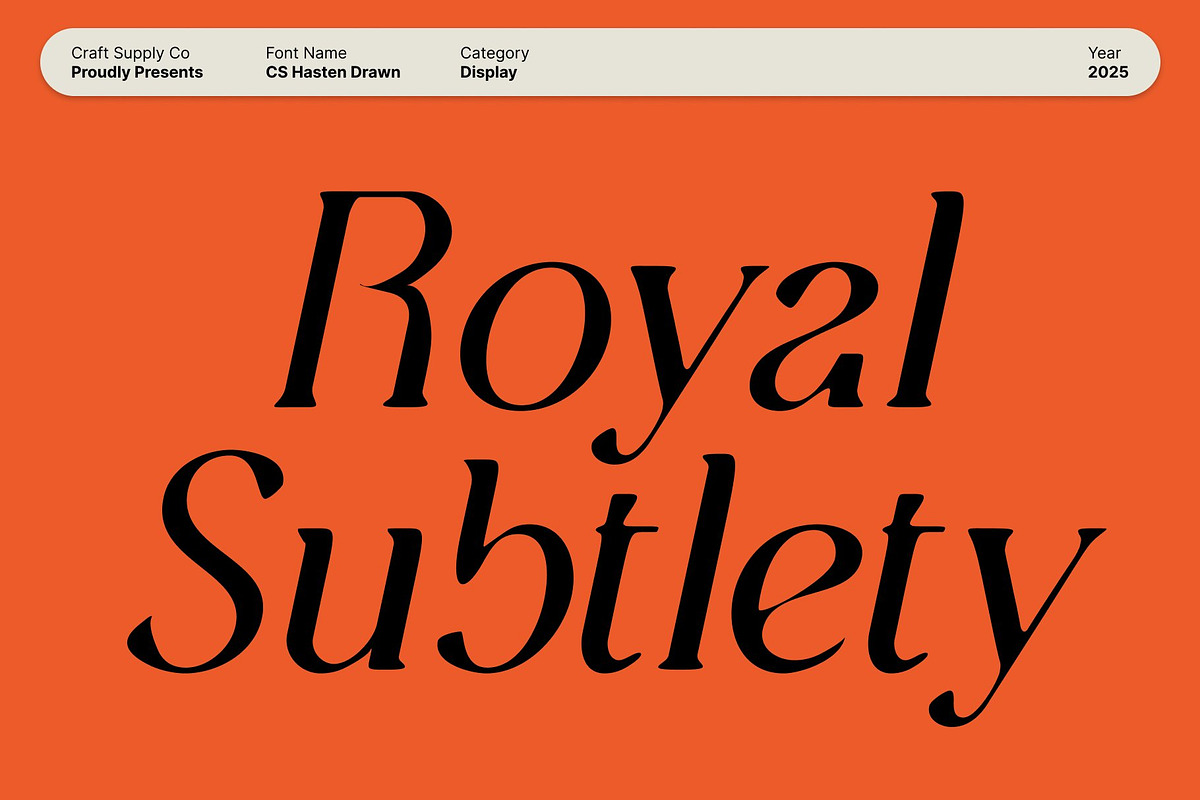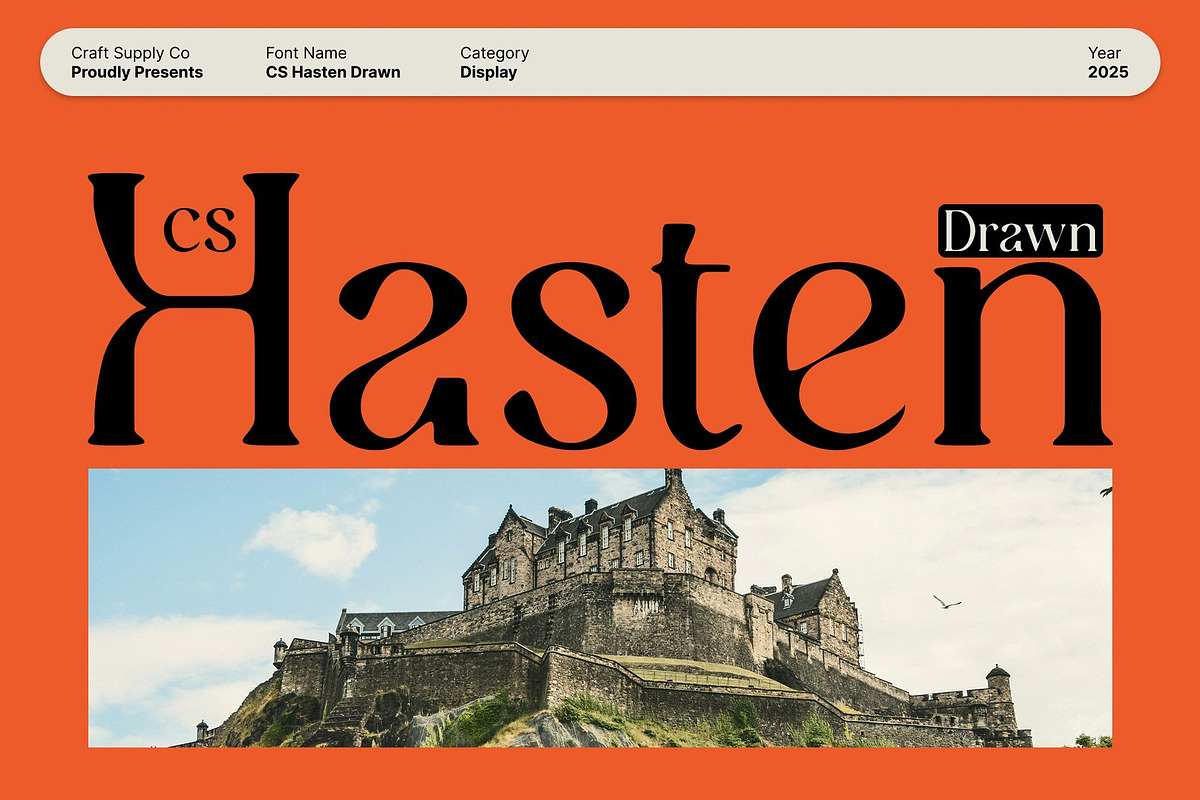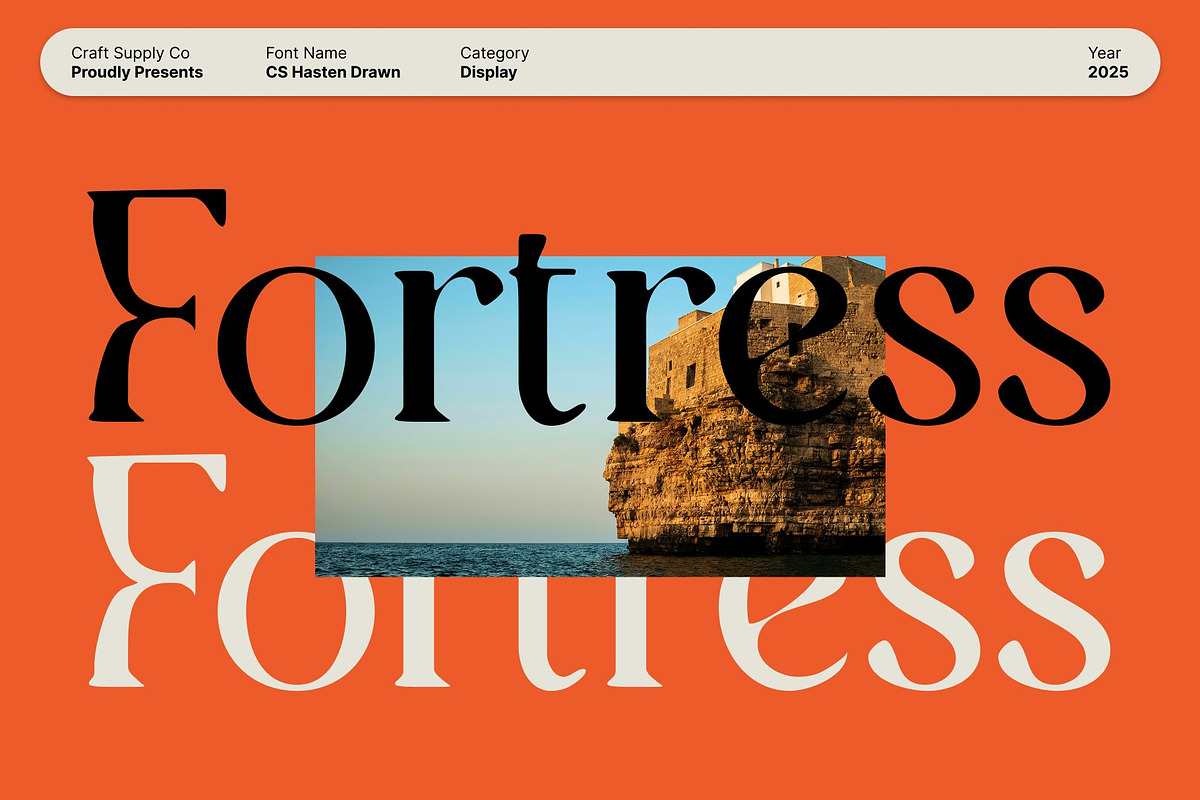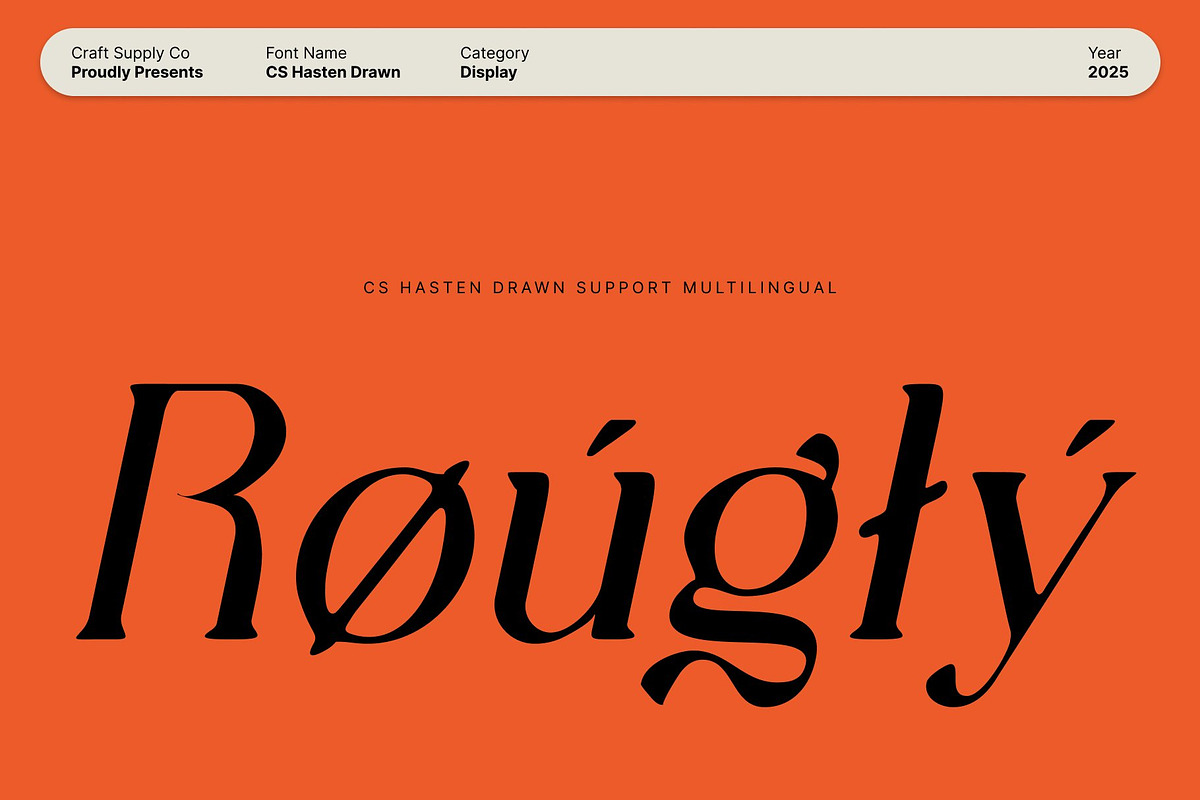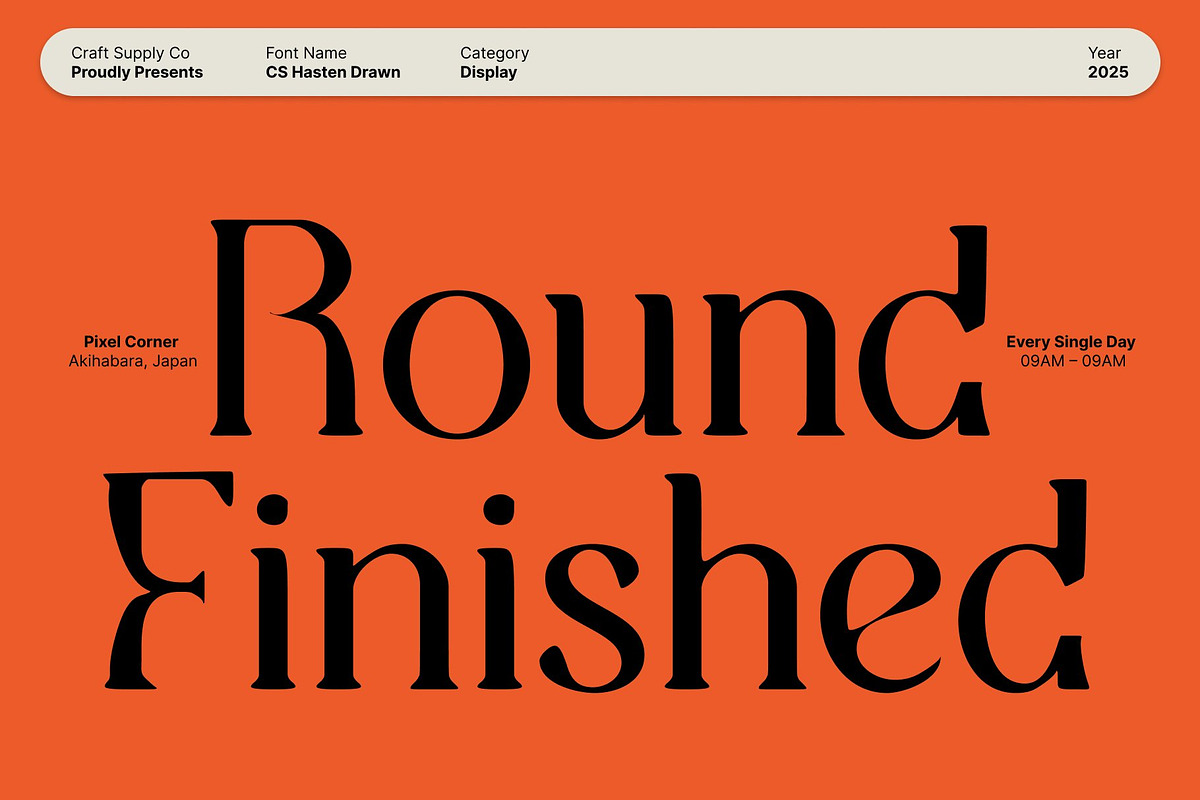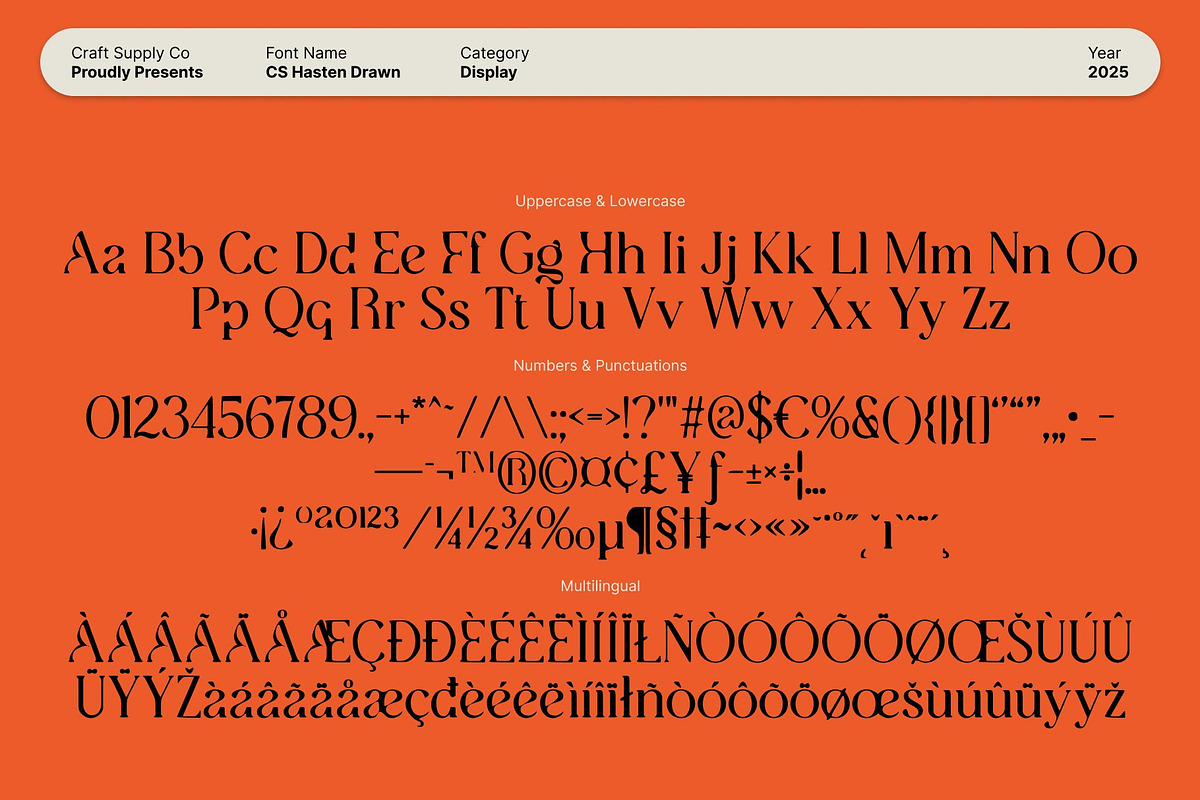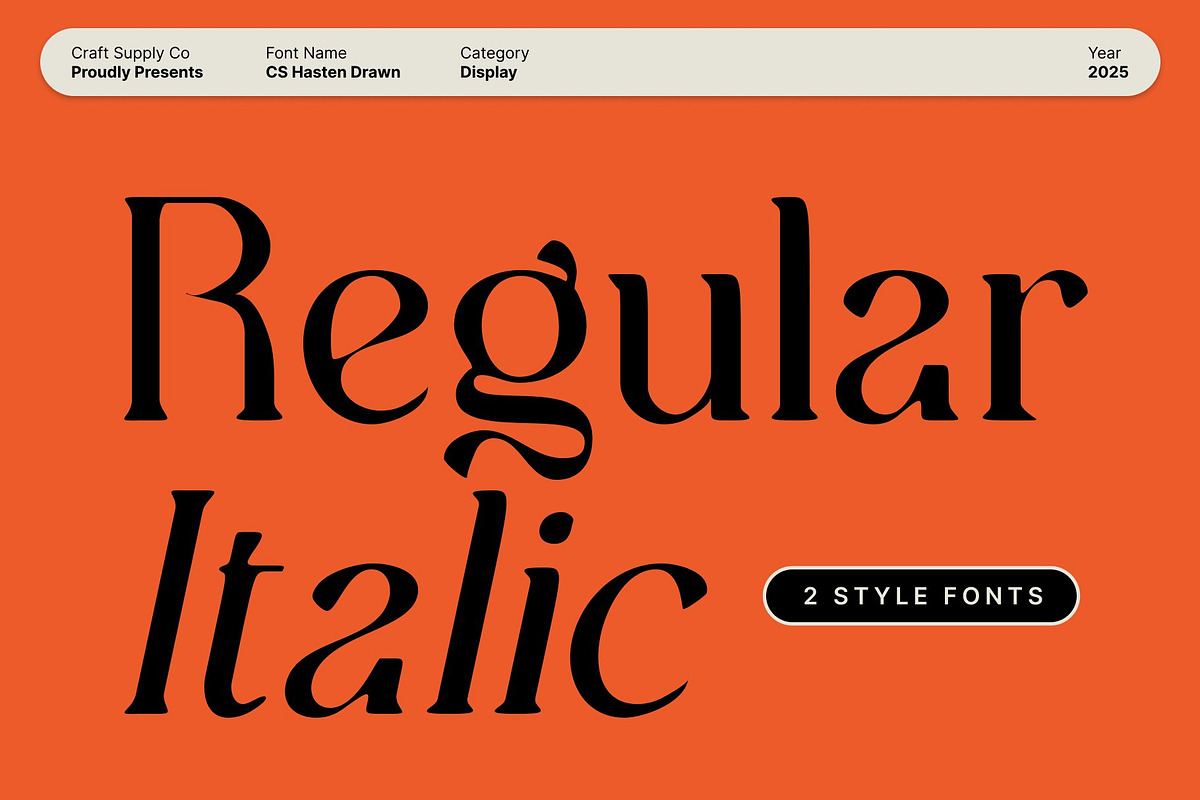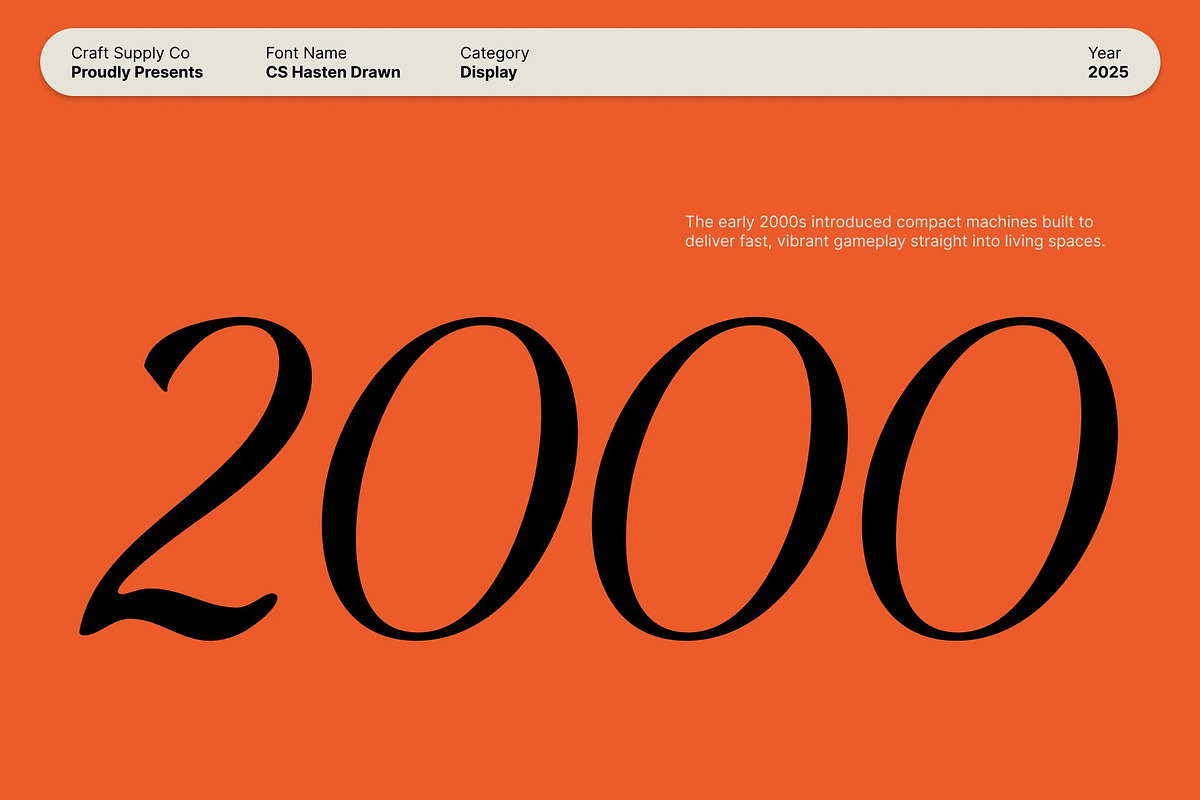
CS Hasten Drawn
CS Hasten Drawn – Artistic Serif Font with Refined Curves and Luxurious Drawn Texture
Refined Curves with Artistic, High-End Character This is a beautifully crafted serif font that blends refined curves with thoughtful artistic details. Each letter is shaped to convey sophistication and smooth elegance, giving the typeface a luxurious presence. Its graceful forms create a polished, high-end impression suited for modern designers who value beauty and refinement in their typography.
Drawn Texture for Soft, Expressive Personality Enhancing its elegant structure, incorporates a delicate drawn texture that adds warmth, softness, and an artisanal touch. This handcrafted finish gives every character a subtle irregularity, making the font feel more human, expressive, and visually engaging. The texture enriches the overall look, offering a gentle artistic charm that elevates any design.
Perfect for Luxury Design, Editorials, and Distinguished Branding Whether you’re crafting luxury branding, editorial layouts, magazine headings, packaging, invitations, or creative visual identities, performs beautifully. Its combination of refined serif shapes and soft drawn texture makes it ideal for projects that require an elevated, exclusive, and art-driven aesthetic.
A Versatile Serif Balancing Grace and Creative Expression This font delivers a seamless blend of elegance and artistic flair. Its graceful curves bring sophistication, while the hand-drawn texture adds depth and personality. This makes it a versatile choice for designers aiming to produce visuals that are both polished and expressive.